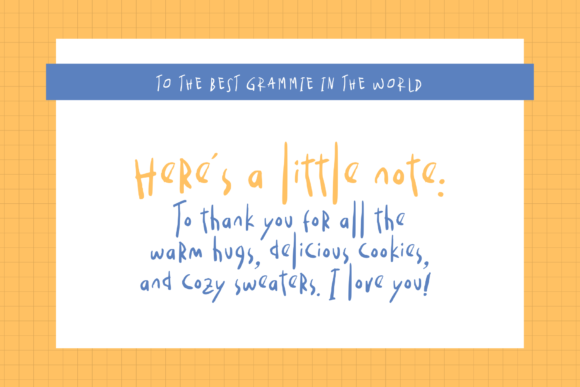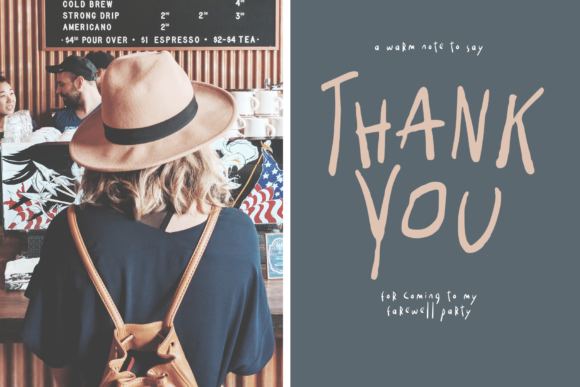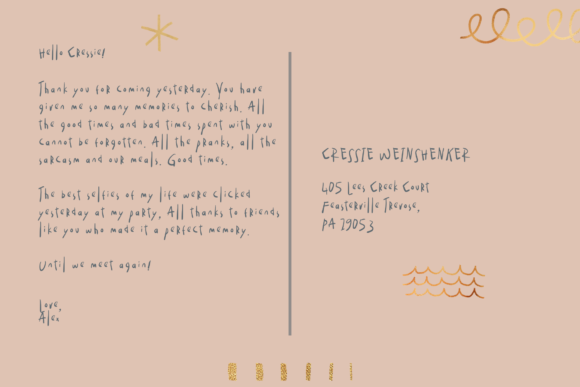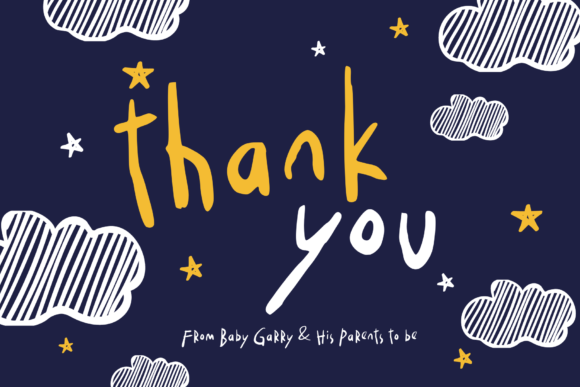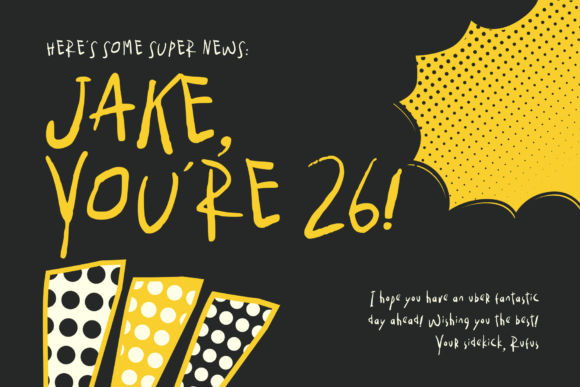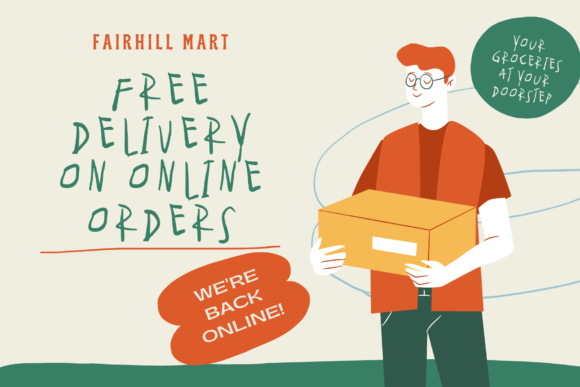
Introducing Carrier Font: The Perfect Handwritten Font for Chalkboard Quotes and Teaching Materials
Are you a designer, teacher, or crafter looking for a unique and authentic font to add a personal touch to your designs? Look no further than Carrier Font, an asymmetrical and quirky lettered handwritten font that’s perfect for creating chalkboard quotes, teaching materials, and more. With its distinctive look and feel, Carrier Font is sure to make your designs stand out from the crowd.
What is Carrier Font?
Carrier Font is a carefully crafted handwritten font that’s designed to mimic the look of chalkboard writing. Its asymmetrical and quirky lettering style gives it a charming, imperfect feel that’s perfect for creating authentic-looking designs. Whether you’re creating chalkboard quotes, teaching materials, or craft projects, Carrier Font is the perfect choice.
Key Features of Carrier Font
• Asymmetrical and quirky lettering style: Carrier Font’s unique lettering style gives it a charming, imperfect feel that’s perfect for creating authentic-looking designs.
• Handwritten font: Carrier Font is a carefully crafted handwritten font that’s designed to mimic the look of real handwriting.
• Perfect for chalkboard quotes and teaching materials: Carrier Font is ideal for creating chalkboard quotes, teaching materials, and other designs that require a personal and realistic feel.
• Authentic look: Carrier Font’s authentic look will add a personal and realistic feel to your designs, making them stand out from the crowd.
Why Choose Carrier Font?
There are many reasons why Carrier Font is the perfect choice for designers, teachers, and crafters. Here are just a few:
• Unique and eye-catching: Carrier Font’s asymmetrical and quirky lettering style makes it a unique and eye-catching addition to any design.
• Versatile: Carrier Font can be used for a wide range of design projects, from chalkboard quotes and teaching materials to craft projects and more.
• High-quality: Carrier Font is a high-quality font that’s designed to deliver exceptional results.
4. Customize and refine: Customize and refine your design as needed, using Carrier Font’s unique lettering style to add a personal and realistic feel.
Tips and Inspiration for Using Carrier Font
Here are a few tips and inspiration ideas for using Carrier Font:
• Use it for chalkboard quotes: Carrier Font is perfect for creating chalkboard quotes that are both inspiring and authentic-looking.
• Add a personal touch to teaching materials: Use Carrier Font to add a personal and realistic feel to your teaching materials, making them more engaging and effective.
• Experiment with different colors and textures: Carrier Font looks great in a wide range of colors and textures, so don’t be afraid to experiment and find the perfect combination for your design.
Carrier Font is a unique and versatile handwritten font that’s perfect for designers, teachers, and crafters. With its asymmetrical and quirky lettering style, authentic look, and ease of use, Carrier Font is the perfect choice for creating chalkboard quotes, teaching materials, and more. So why wait? Download Carrier Font today and start adding a personal and realistic feel to your designs!